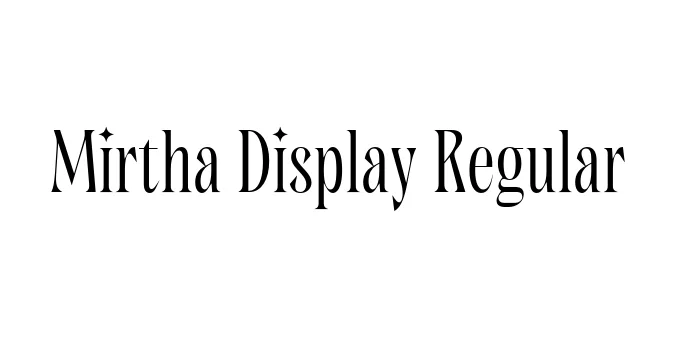
Mirtha Display Regular
Designed by Dicky Nugraha (Zeune Type Foundry)
| Category | Display / Serif |
| Designer | Dicky Nugraha (Zeune Type Foundry) |
Mirtha Display Regular is a sophisticated and high-contrast typeface heavily inspired by the Art Deco movement. It seamlessly blends the geometric precision of the early 20th century with contemporary digital refinement, resulting in a font that exudes elegance and luxury. Each character is crafted with a rhythmic flow, featuring sharp lines and stylized curves that make it an ideal choice for high-end fashion and lifestyle branding.
This font serves as a powerful tool for designers looking to evoke a sense of vintage glamour without sacrificing modern readability. Mirtha Display Regular is particularly effective when used in large formats, such as editorial headlines or decorative signage, where its intricate details and unique proportions can truly shine. Its timeless aesthetic ensures that any project it touches feels both historic and avant-garde.
Mirtha Display Regular Best Uses
High-end brand identity and luxury logo marks.
Eye-catching magazine headlines and feature article titles.
Elegant invitations, name cards, and event signage.
Premium product packaging for cosmetics or spirits.